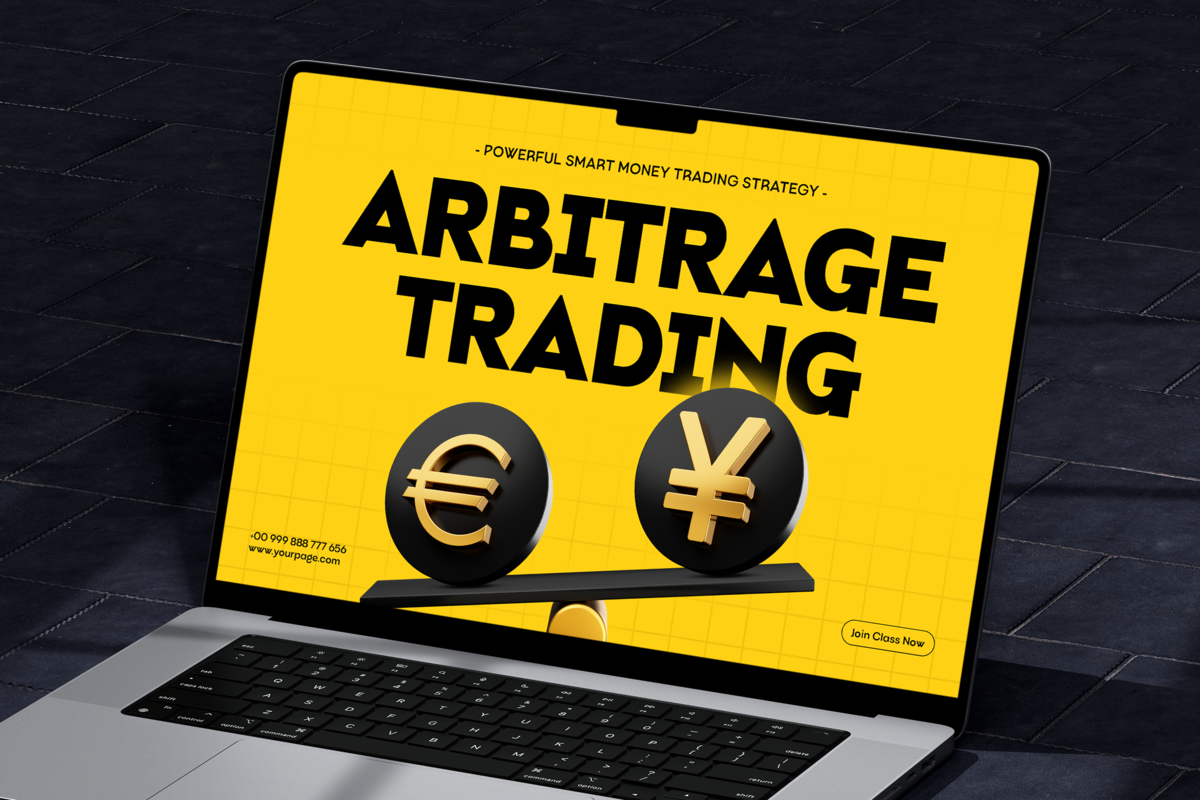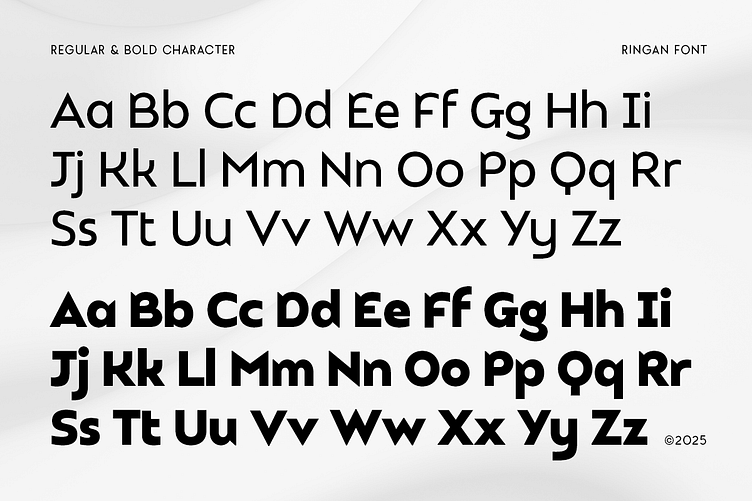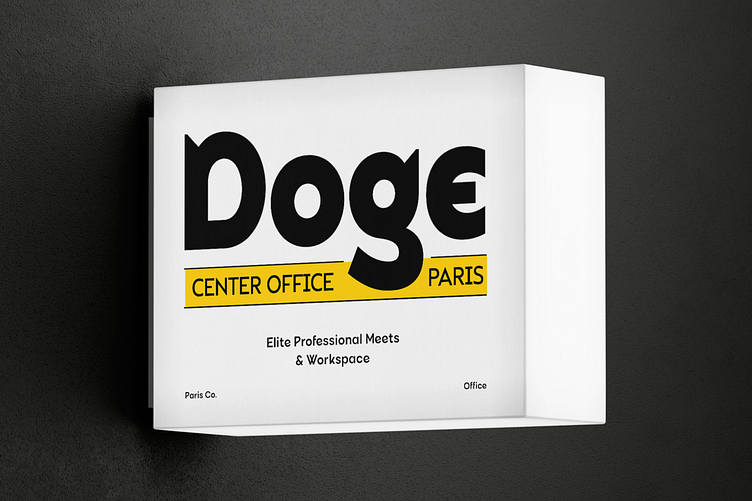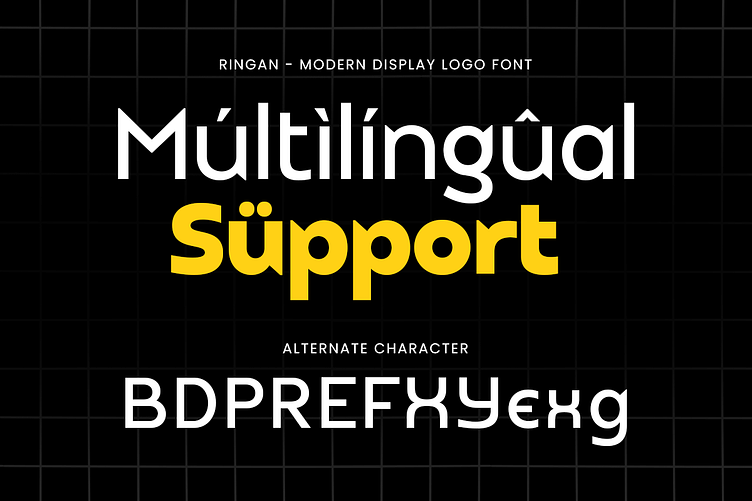
Ringan β Bold Lightweight Font for Modern Logo Design π
Say hello to Ringan, a bold and lightweight modern typeface crafted for standout display use. Designed with a sleek structure and sharp rhythm, Ringan β Modern Display Logo Font was made to grab attention and communicate clarityβperfect for logo designers, branding specialists, and creatives who love clean visuals with strong presence.
We created Ringan as a response to the need for a typeface that feels modern, distinct, and effortlessly stylish. With generous spacing, geometric roots, and a contemporary display character, Ringan is ideal for modern logos, fashion brands, editorial headers, digital media, and minimalist brand identities.
β Perfect for display-heavy layouts and big statements
β Sharp, clean, and geometric for modern branding
β Excellent for logos, posters, packaging, and design systems